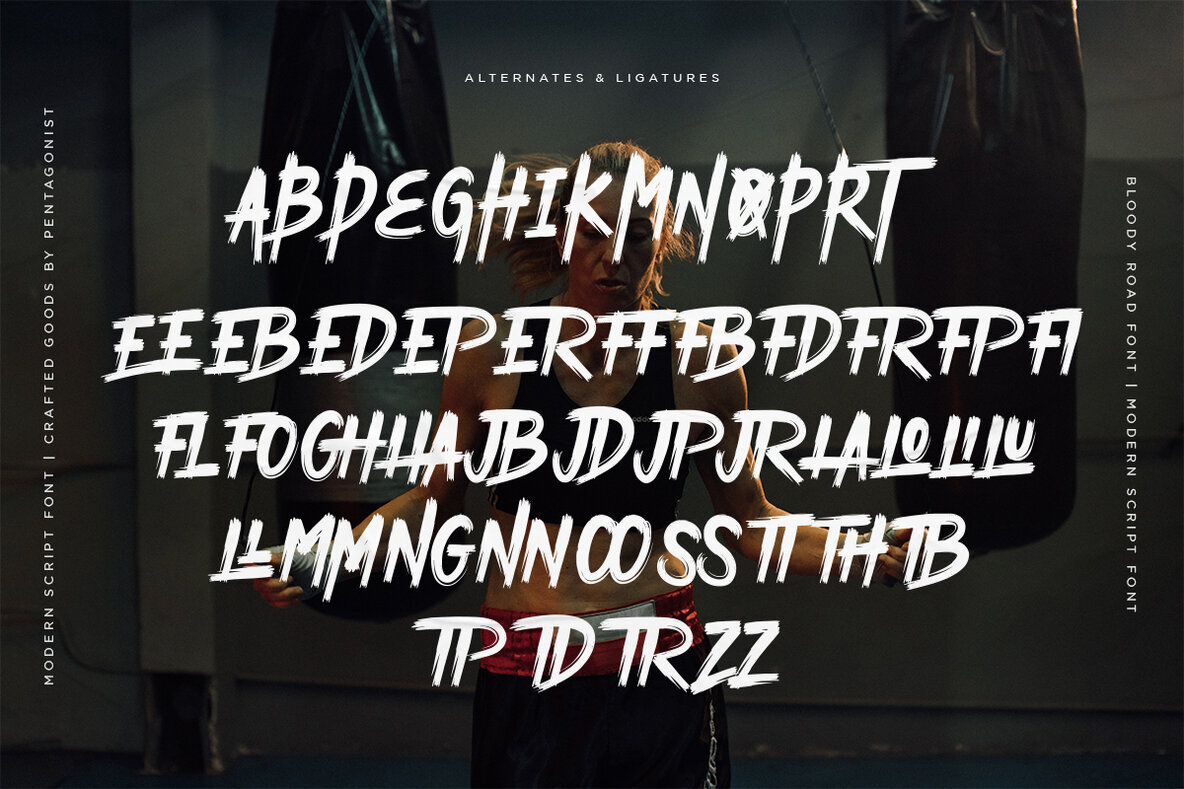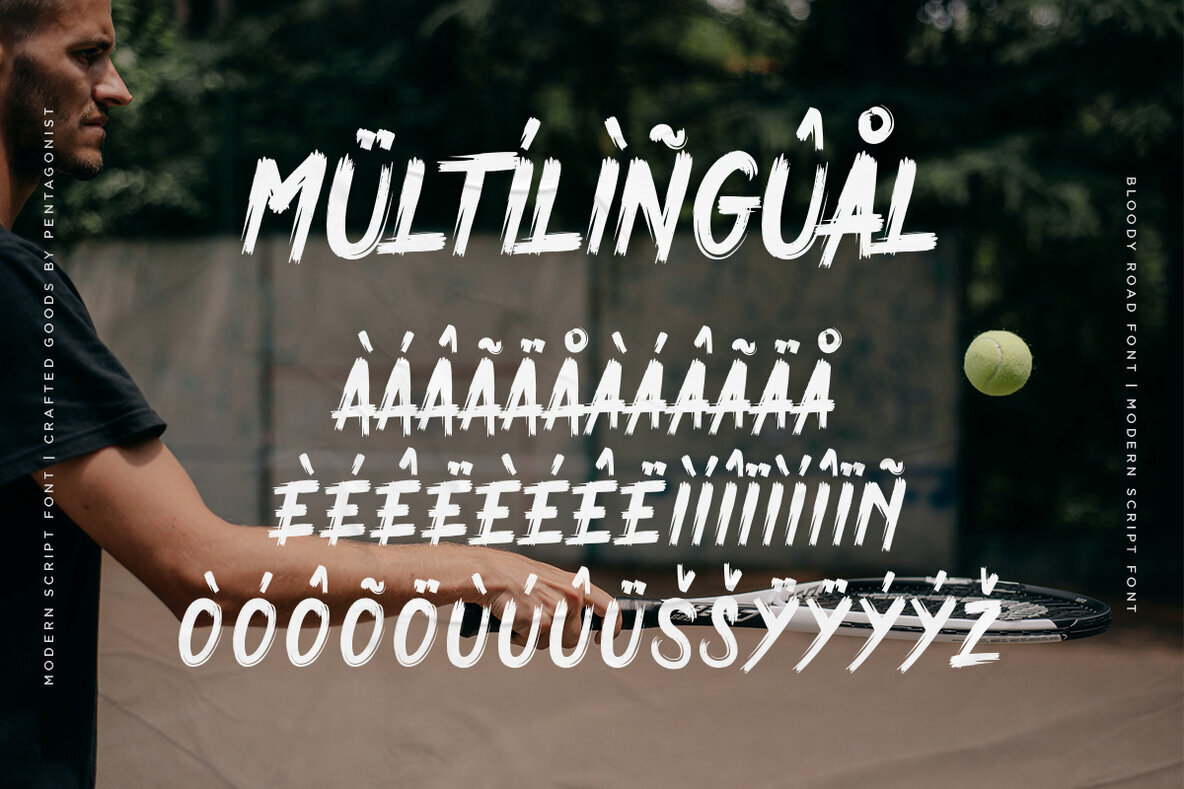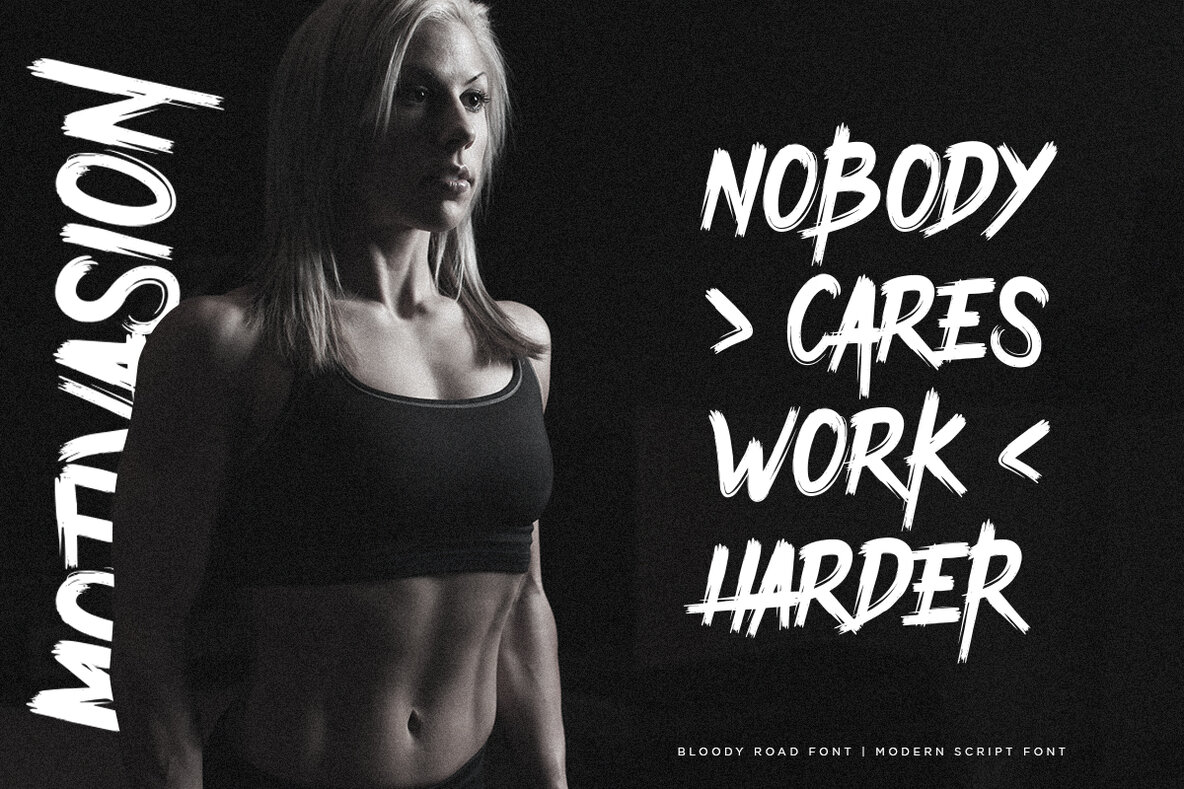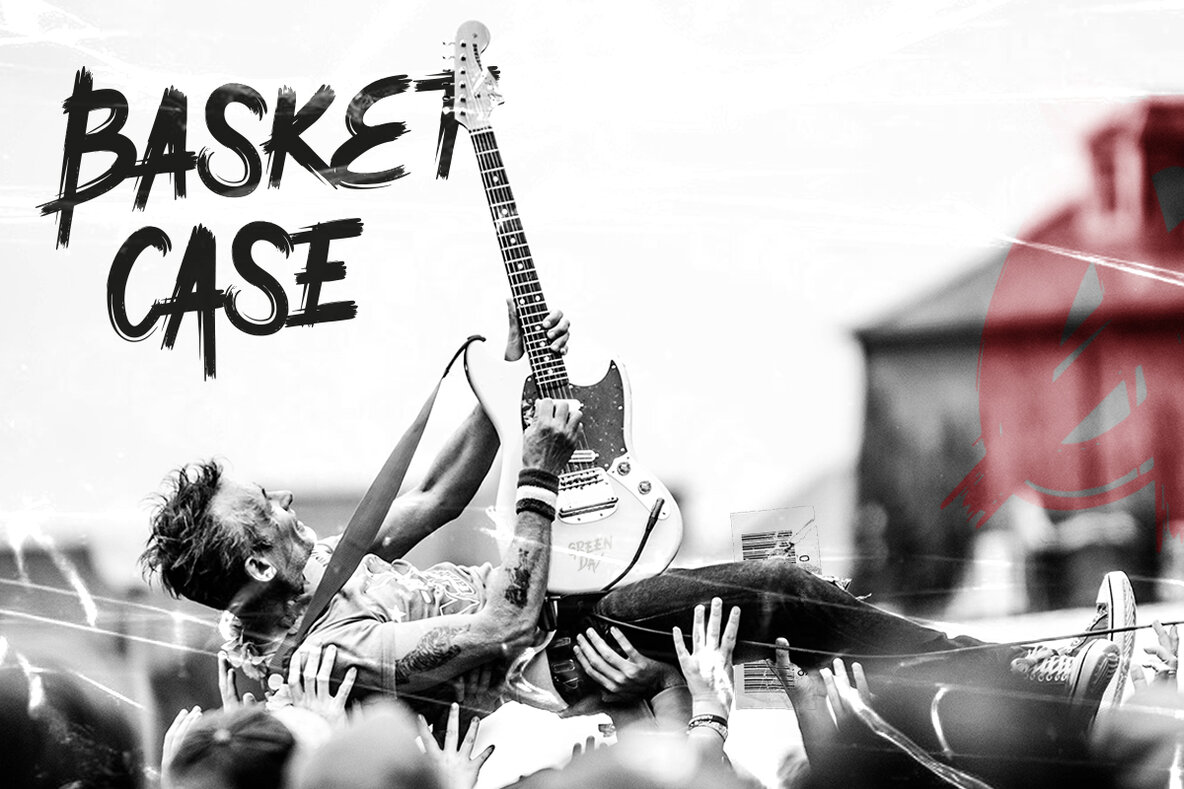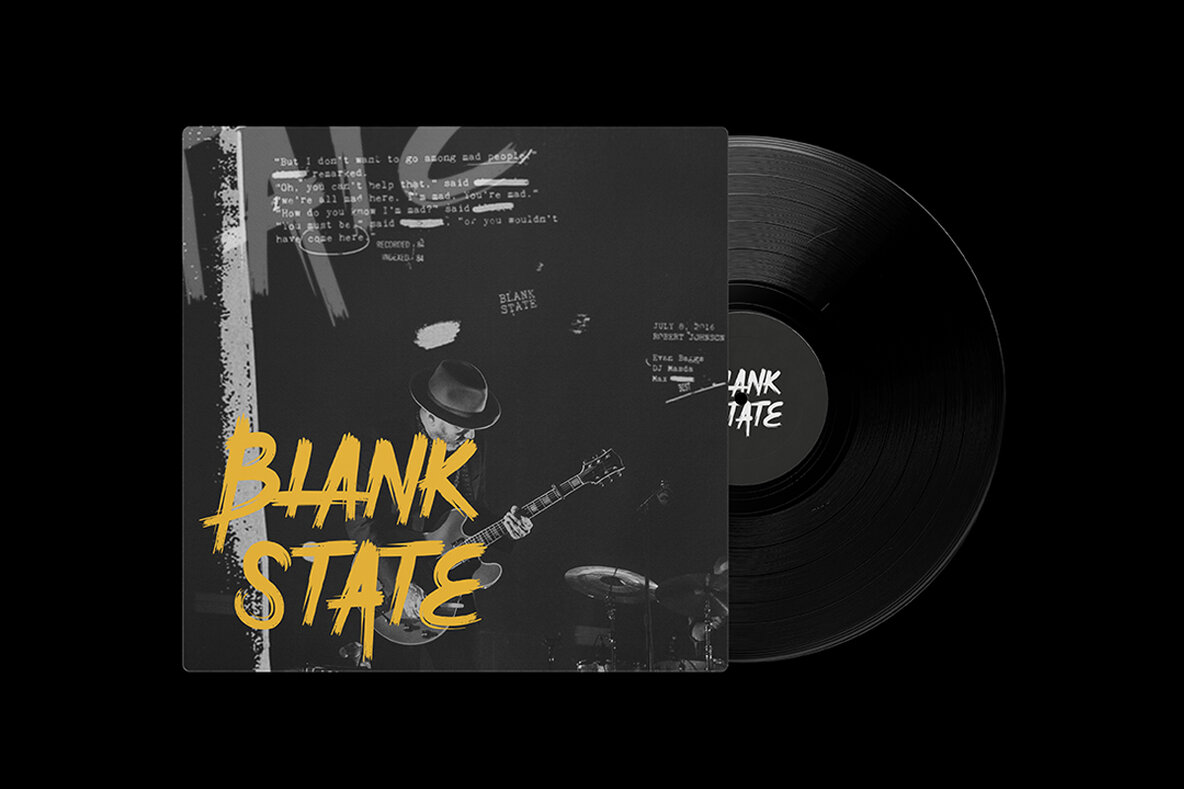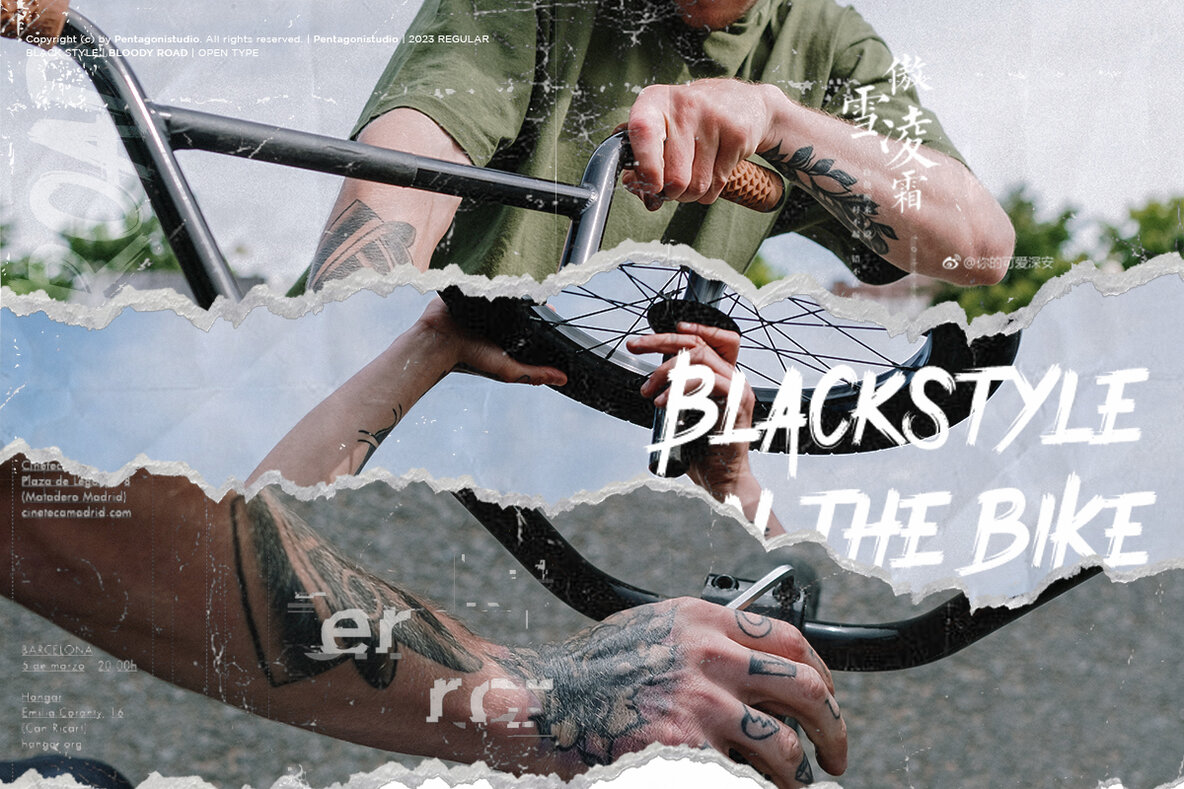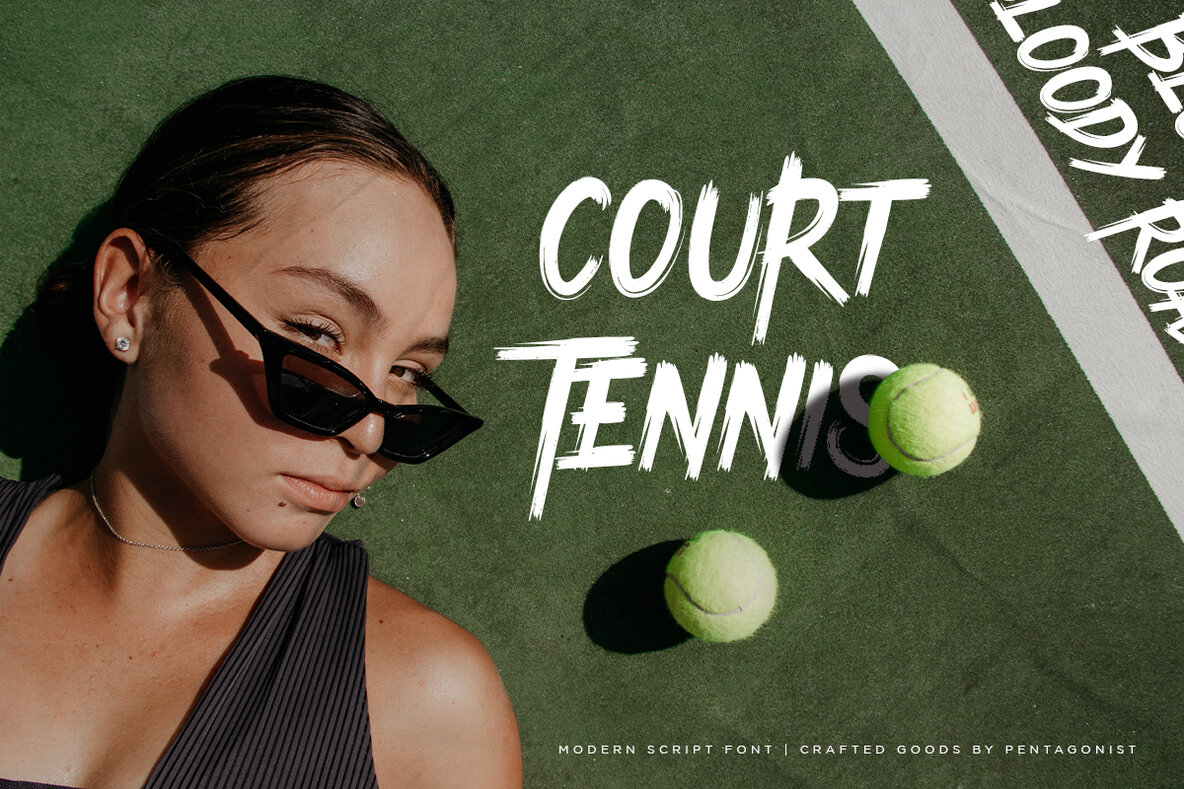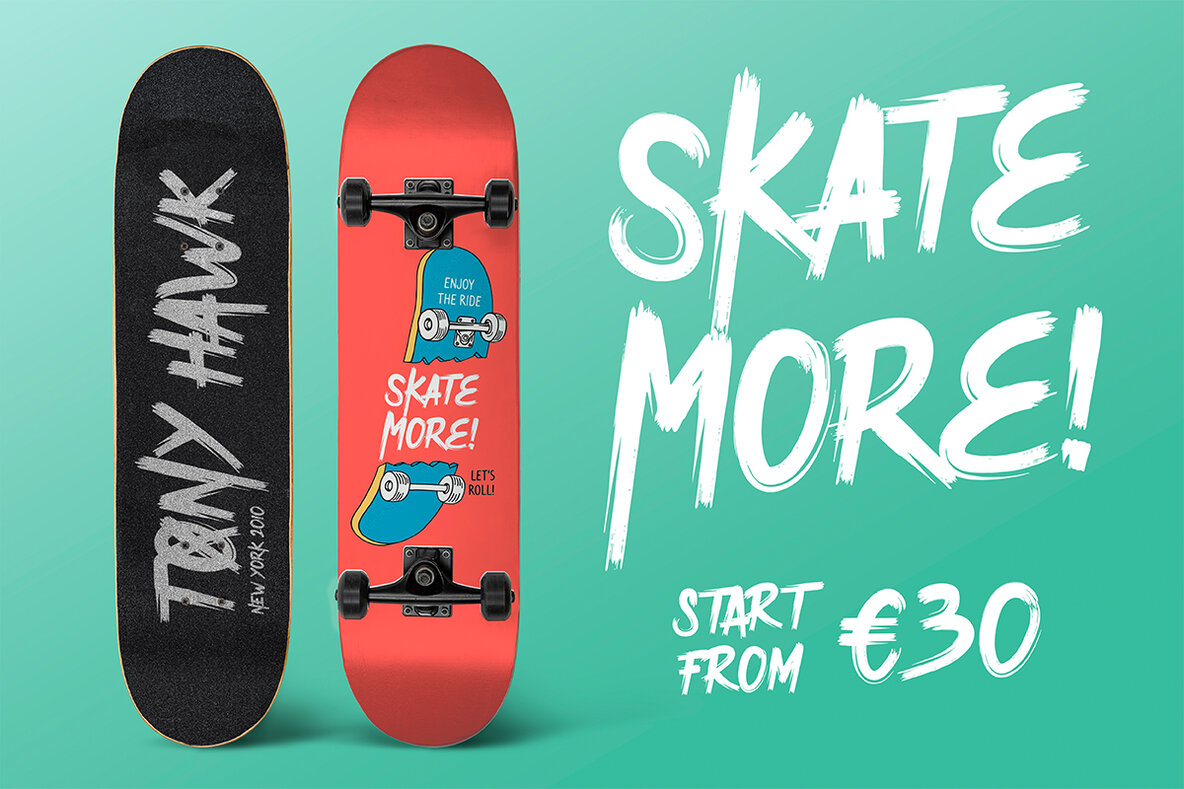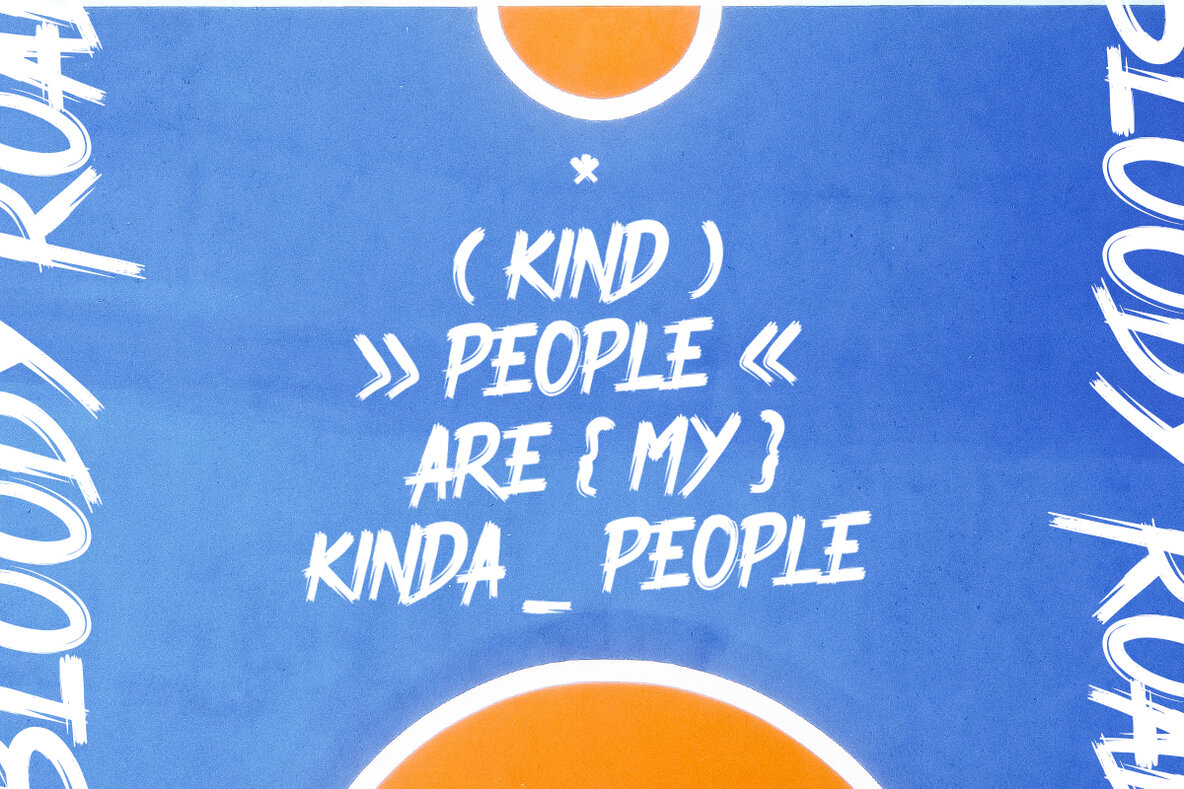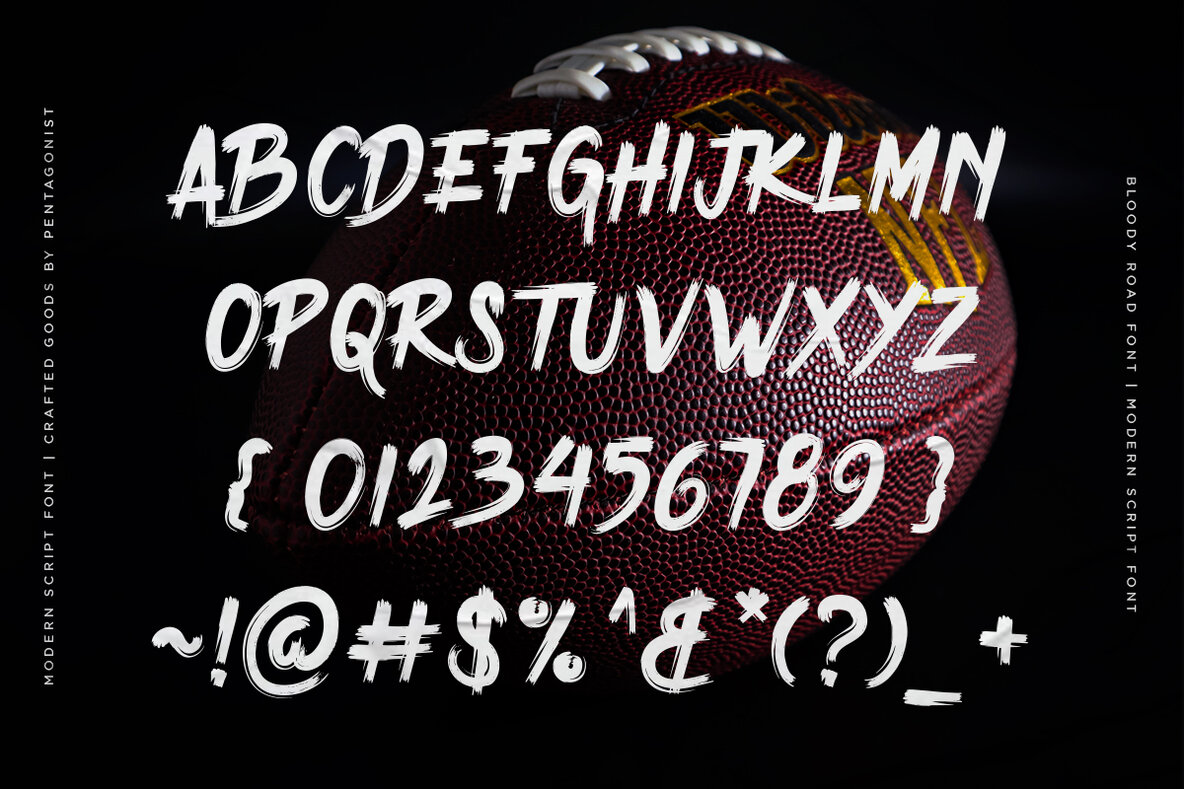
Bloody Road Font
Bloody Road Regular
Unleash your creative potential with Bloody Road, a striking brush display typeface by Pentagonistudio. Inspired by a modern and bold aesthetic, Bloody Road is designed to make your projects stand out with its distinctive style and flair. Bloody Road is easy to integrate, with no special software required for use. This typeface is compatible with all basic programs and website applications that support standard fonts. Whether you're working on digital designs or print projects, Bloody Road offers versatility and a powerful visual presence.Bloody Road: Bold Brush Display Typeface